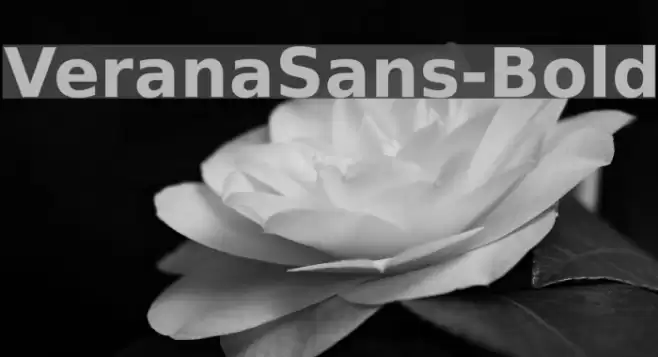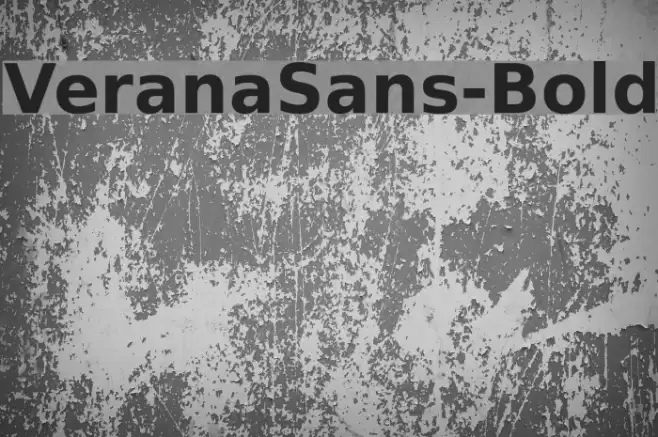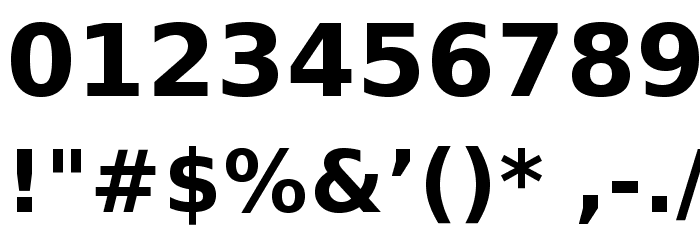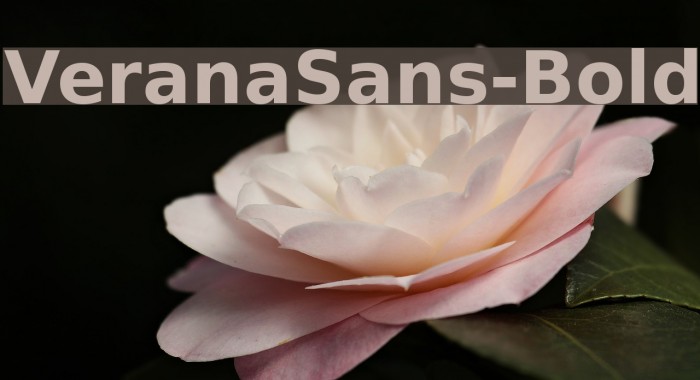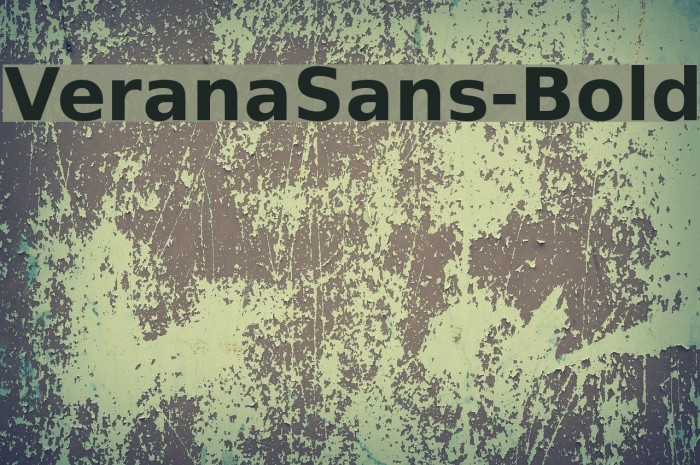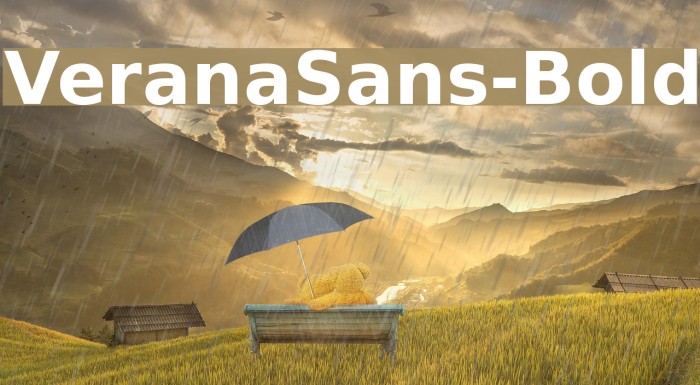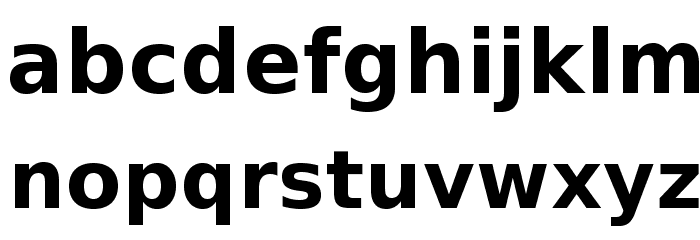
VeranaSans-Bold Font
VeranaSans-Bold Description
This font features a clean and modern sans-serif design with bold, uniform strokes that convey a sense of strength and clarity. The characters are well-proportioned, with a consistent weight that enhances readability. The uppercase letters are slightly taller than the lowercase, providing a balanced and harmonious appearance. The numerals are clear and distinct, making them easily legible. Special characters are designed with the same boldness, ensuring they stand out without overpowering the text. This font is versatile, suitable for a variety of design applications.
A bold, modern sans-serif font with strong, uniform strokes and excellent readability from Uncategorized fonts.
- Proposed Projects: Ideal for branding, advertising, headlines, and digital interfaces where clarity and impact are essential.
- Use Case: Headlines, Logos, Digital interfaces